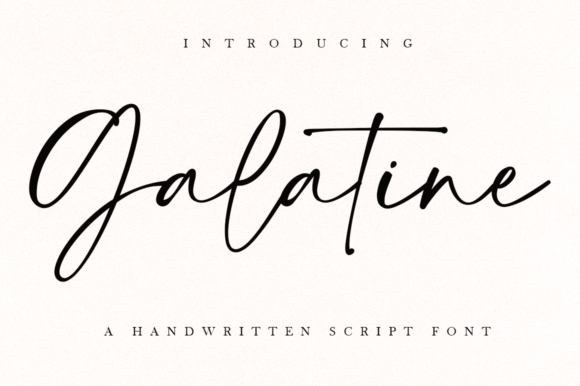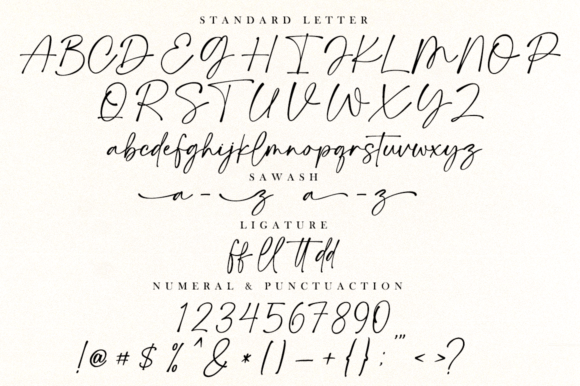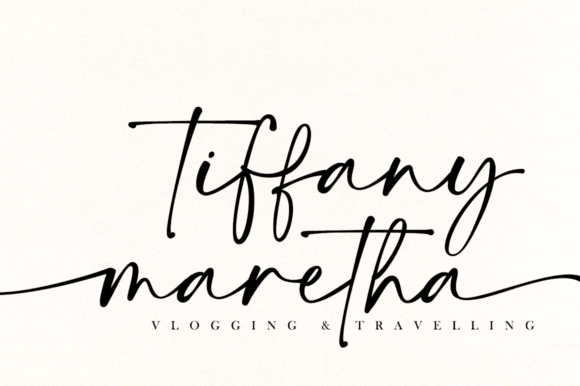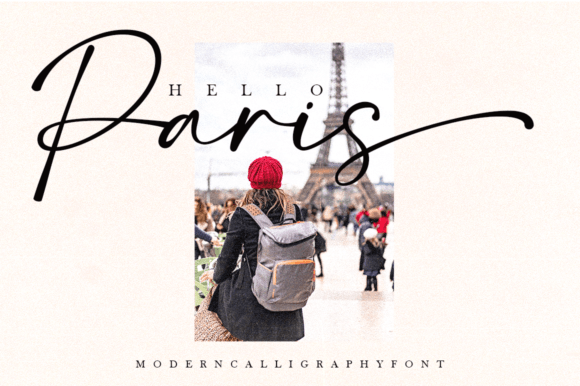
Galatine Font: Elegant Handwritten Script for Wedding & Logo Design
About the Galatine Font
Introducing the Galatine Font, a beautifully crafted typeface designed to elevate your creative projects. Galatine is a beautiful handwritten font ideal for logos, wedding stationery, photography watermarks, modern websites, and more. Fall in love with its incredibly distinct and timeless style, and use it to create spectacular designs!
Galatine’s elegant yet slightly informal style makes it perfect for branding projects needing a touch of sophistication but avoiding stuffiness. It works exceptionally well in logos, short headlines, and invitations, particularly for businesses in the fashion, beauty, or lifestyle sectors. However, its delicate strokes are not suited for body text or UI elements where high readability is crucial. Avoid using it for lengthy paragraphs or small sizes.
Pairing Galatine effectively depends on the desired effect. For a modern feel, consider pairing it with a clean sans-serif like Lato or Open Sans. If a more classic aesthetic is desired, a serif like Playfair Display or Merriweather can create a harmonious balance. Adding a touch of playful contrast, a simple geometric sans-serif such as Roboto can also work well.
Galatine projects an overall personality of sophisticated playfulness. It’s both charming and refined, making it ideal for brands aiming for a memorable yet approachable image.
Galatine Font Usage Examples
Galatine Font Example